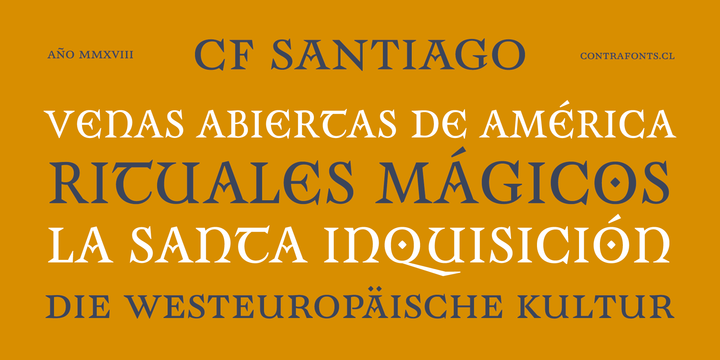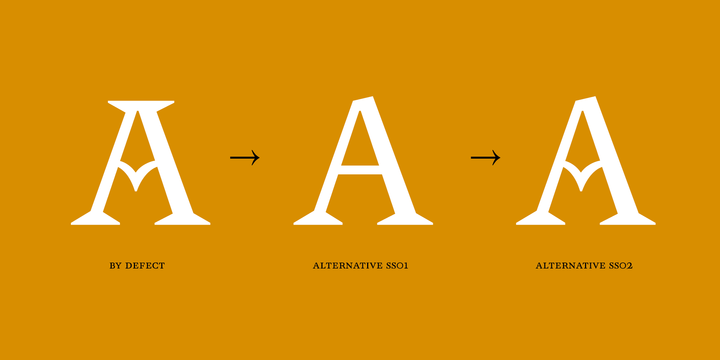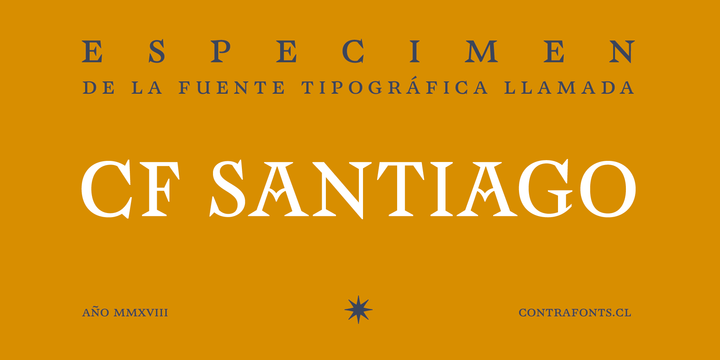
CF Santiago Font
About this font family
This alphabet has only capital and small caps. With several alternative characters (A, R, Y) in different style groups.
The capitals are even more flexible, with alternatives for Uncial inspiration. In addition to ligatures symbols and various groups of numbers.